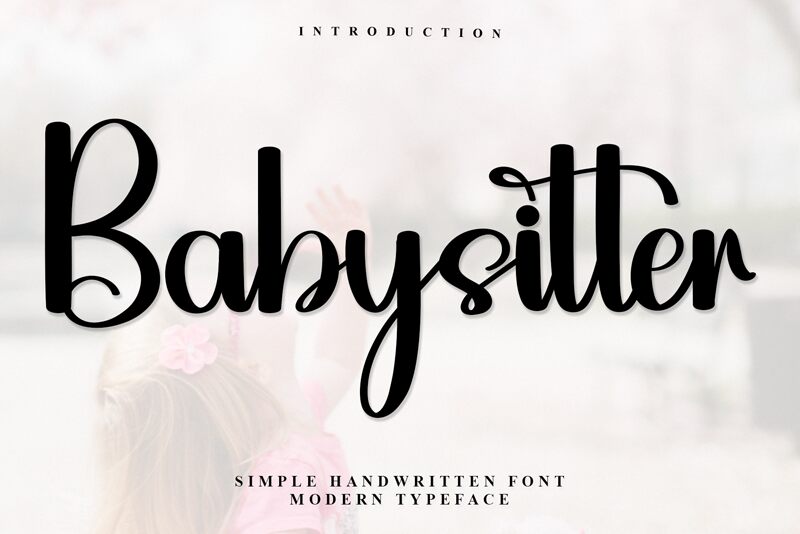
Babysitter font by Inermedia Studio is a free script font that blends a modern handwritten touch with a friendly and inviting aesthetic. Crafted to give a lively, natural feel, this font captures an informal yet contemporary vibe. Ideal for projects that aim for a casual yet stylish look, Babysitter offers a special flair for personal and creative endeavors.
The versatile nature of Babysitter makes it perfect for personal branding, casual invitations, blog headers, social media posts, digital art projects, scrapbooking, lifestyle articles, personal stationery, and hobby-related projects. It adds a personal touch that feels approachable and engaging.